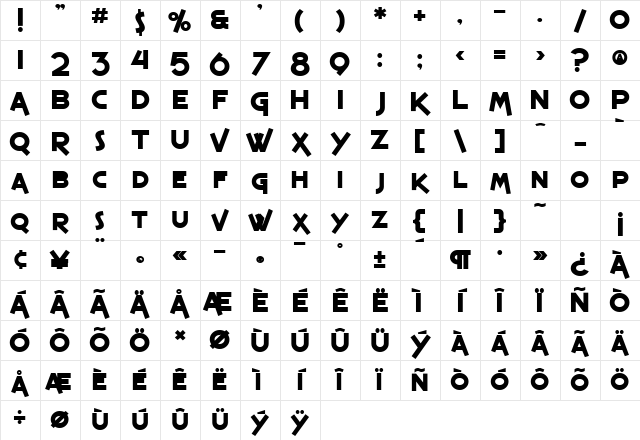
SF Espresso Shack Bold Free Font
SF Espresso Shack Bold
SF Espresso Shack Family
SF Espresso Shack Bold
Complete SF Espresso Shack Bold glyph index. Displaying only characters natively supported by SF Espresso Shack Bold font.
Design Context for SF Espresso Shack
SF Espresso Shack is a composed and adaptable typeface that performs quietly and consistently across a wide range of design contexts. Its bold stroke weight gives it real presence on the page.